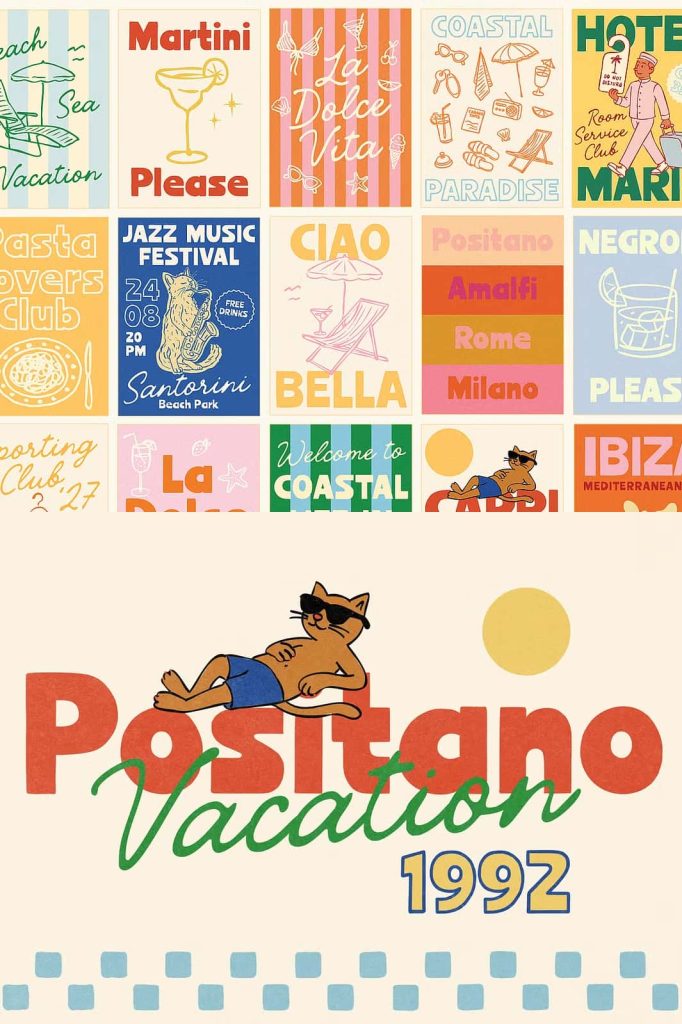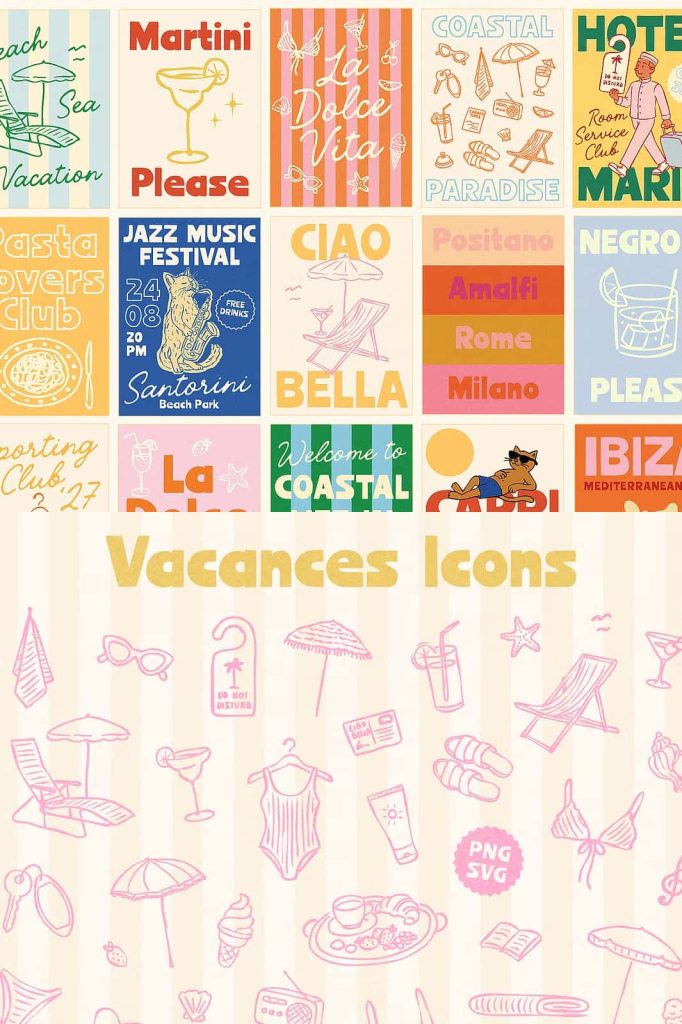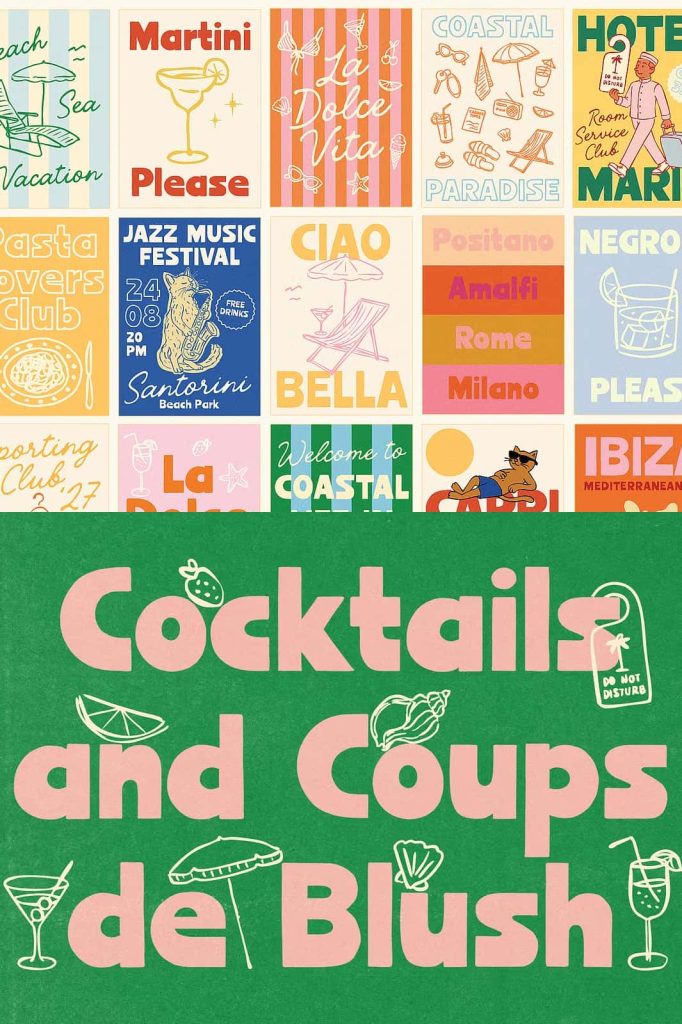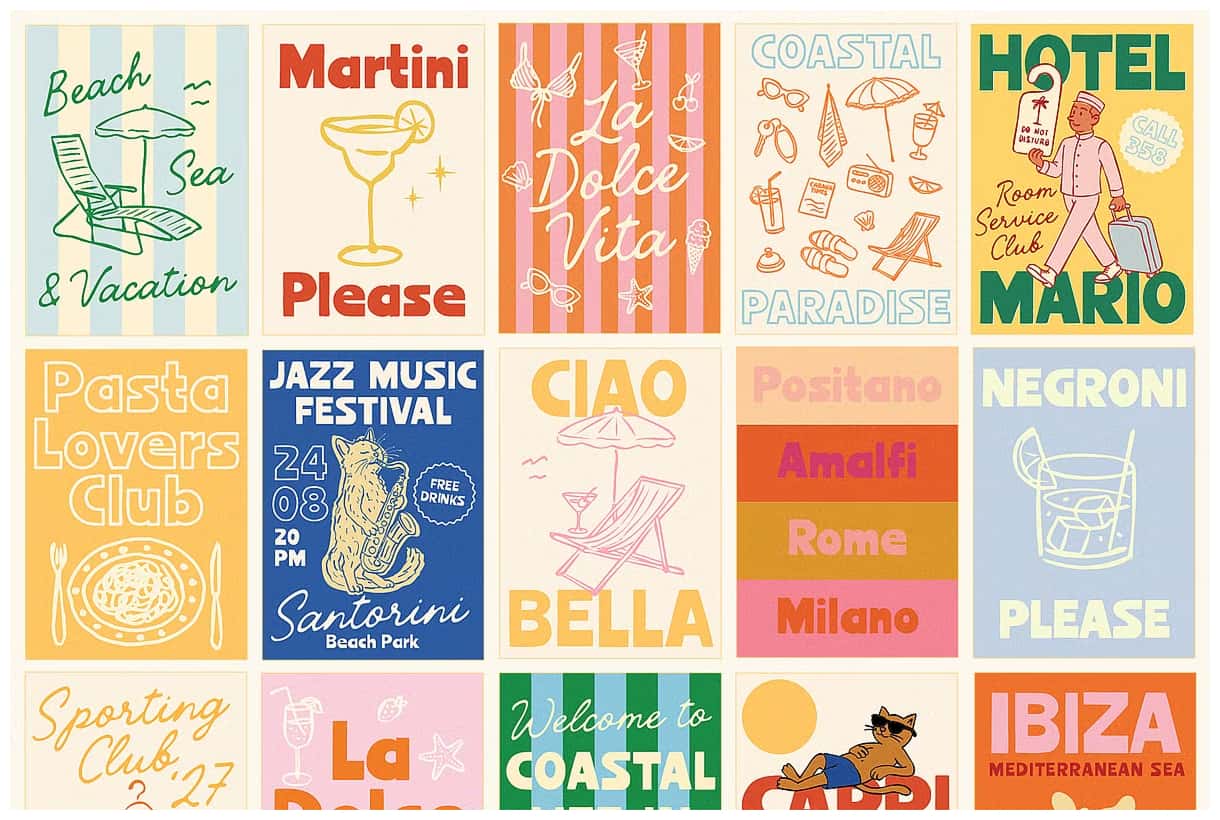
Handwritten Vintage Font For Posters
Vacances Poster Club — Handwritten Vintage Font for Posters (+ Illustrations) đŸ›ĩ🌀đŸĒŠ
This is what happens when vintage typography meets modern design needs — a font family inspired by retro poster design